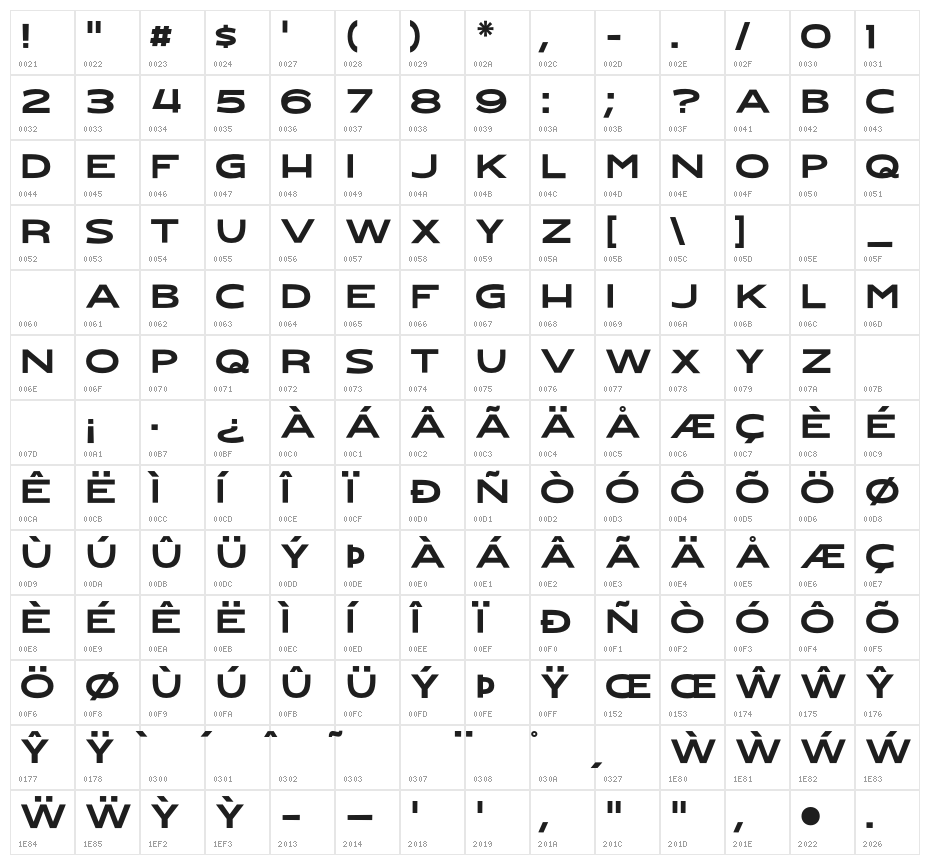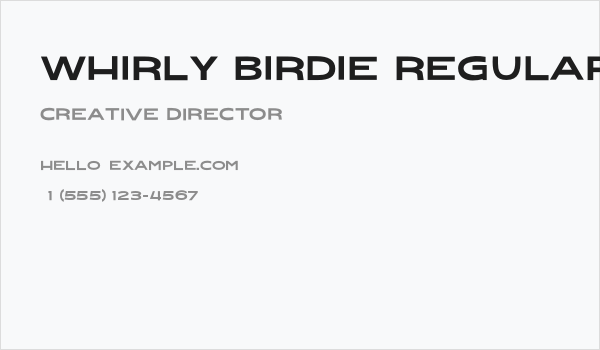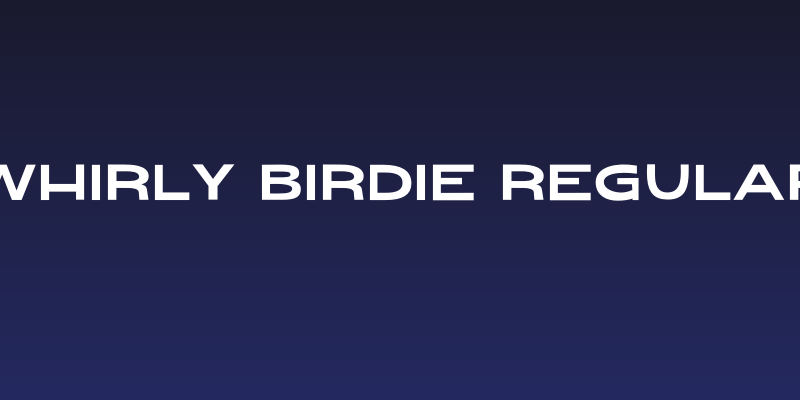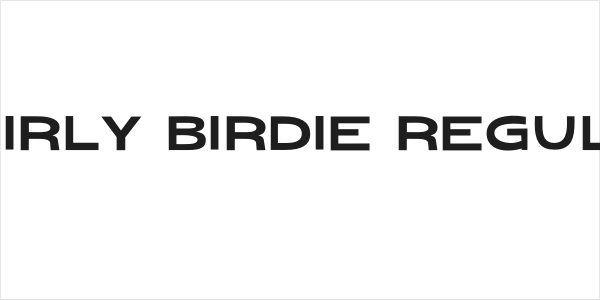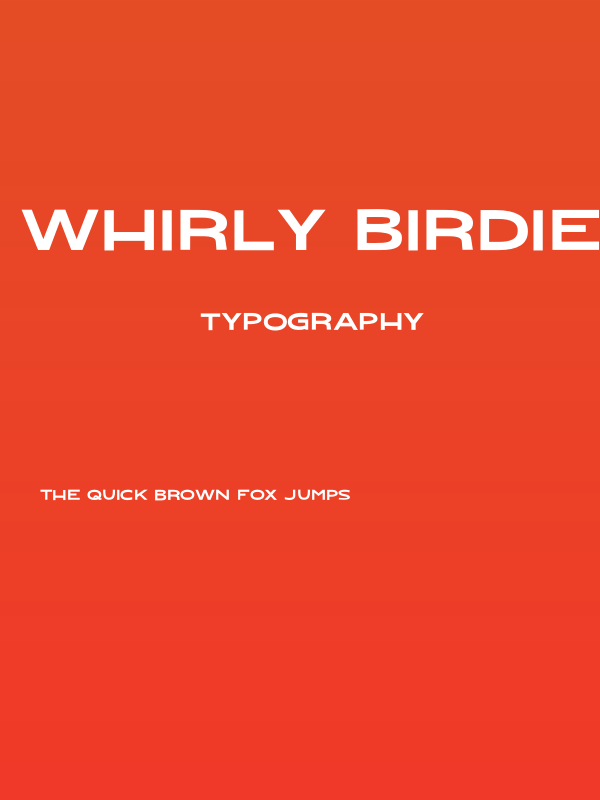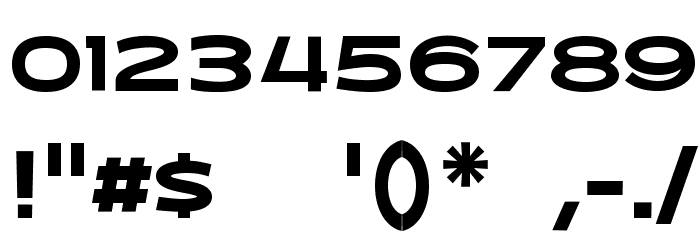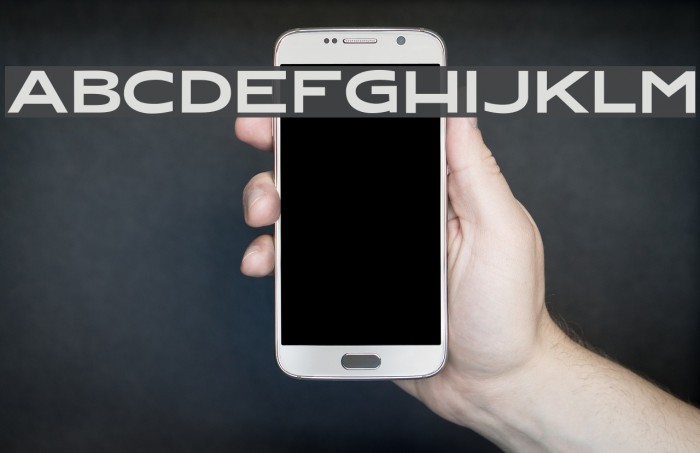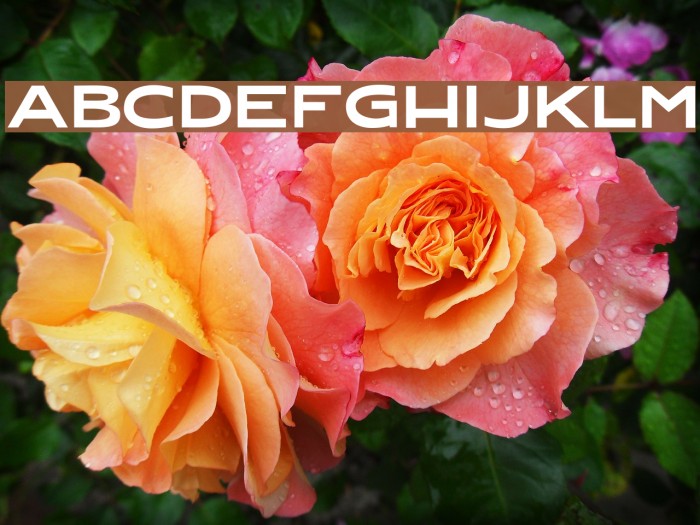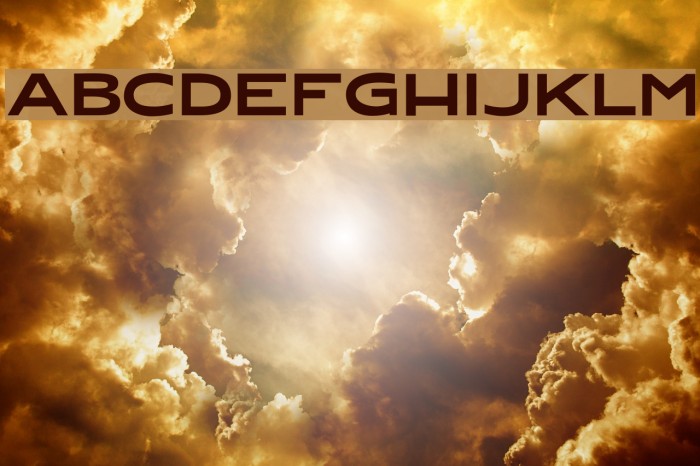
Whirly Birdie Regular Font
Whirly Birdie Regular Description
This font features a bold and modern design with clean, geometric lines. The uppercase letters are uniform in height, offering a consistent and structured appearance. The lowercase letters maintain the same geometric style, providing a cohesive look throughout. The numerals are distinct and easy to read, with a slightly rounded appearance that complements the overall design. Special characters are well-integrated, maintaining the font's modern aesthetic. This font is versatile, suitable for a variety of design projects that require a contemporary and bold typeface.
| Use Case | Headlines, Logos, Branding |
| Proposed Projects | Ideal for branding, advertising, headlines, and digital media projects that require a modern and bold typeface. |